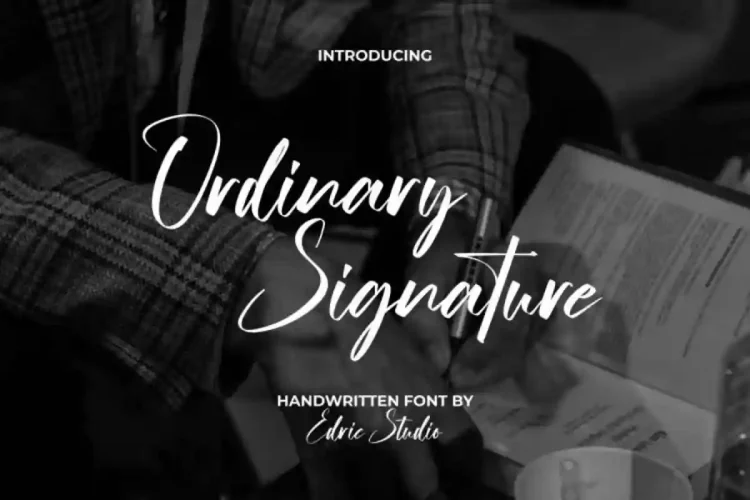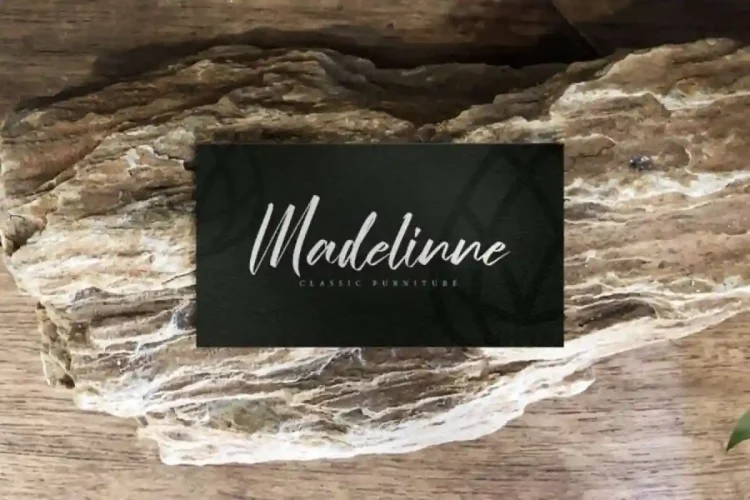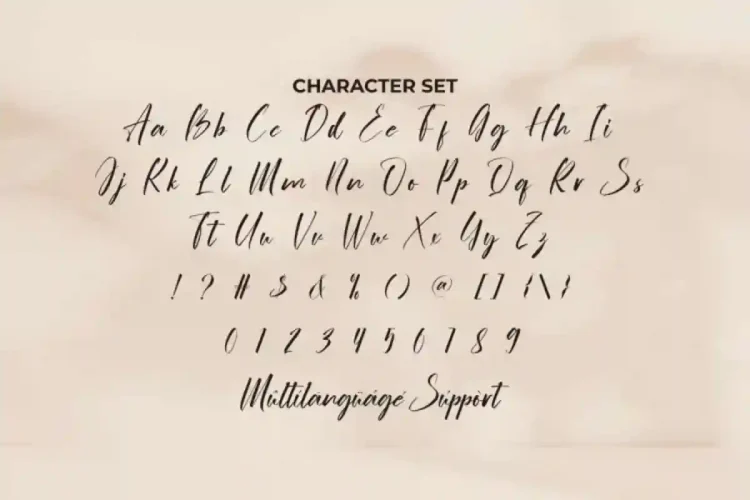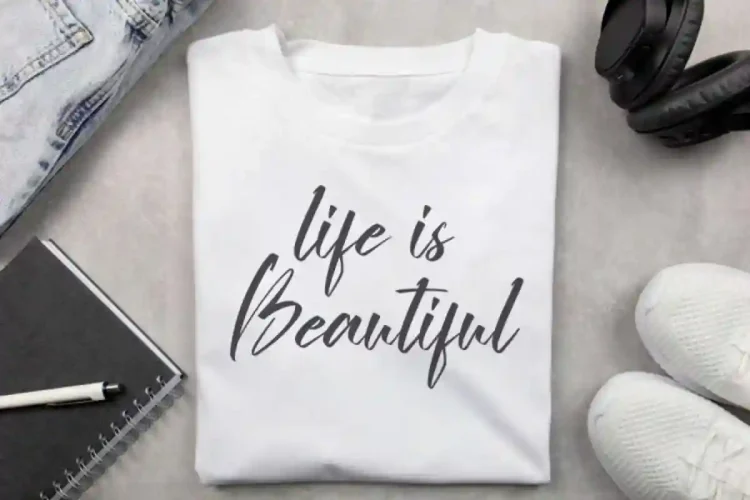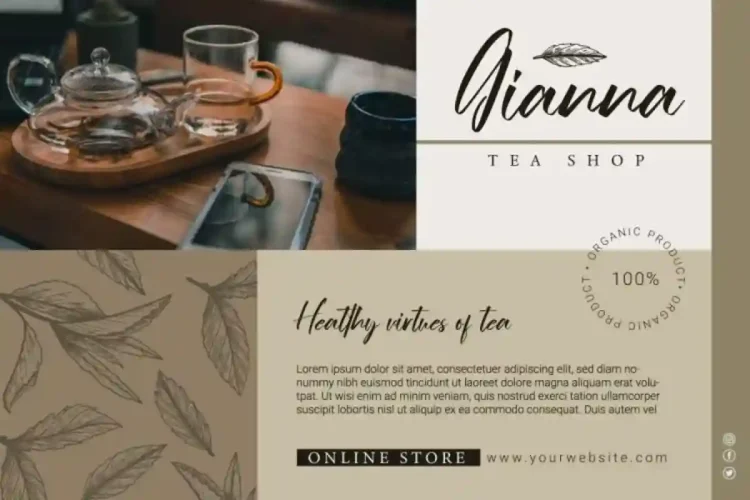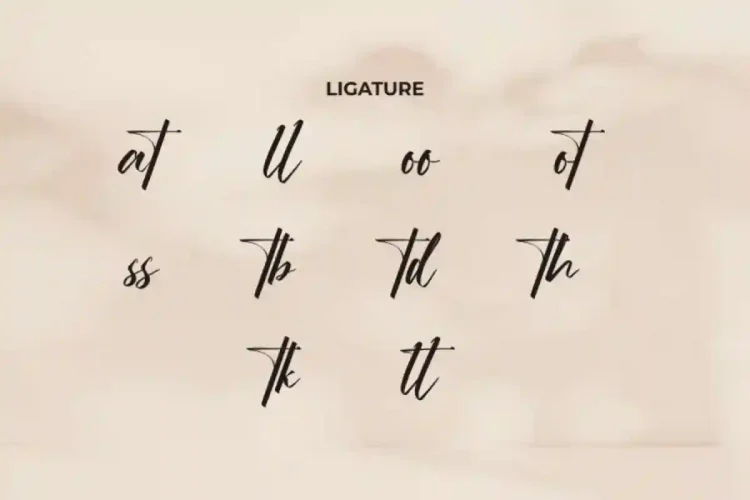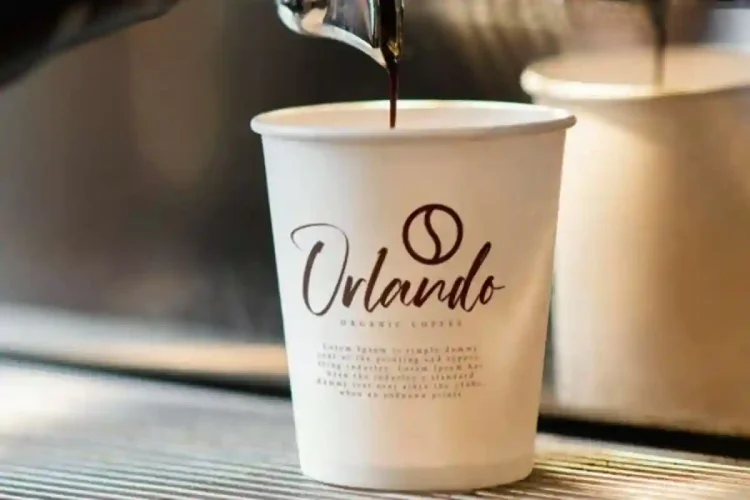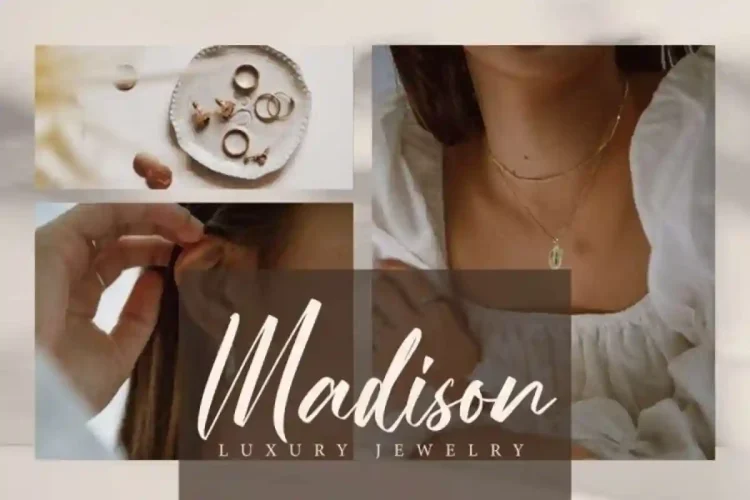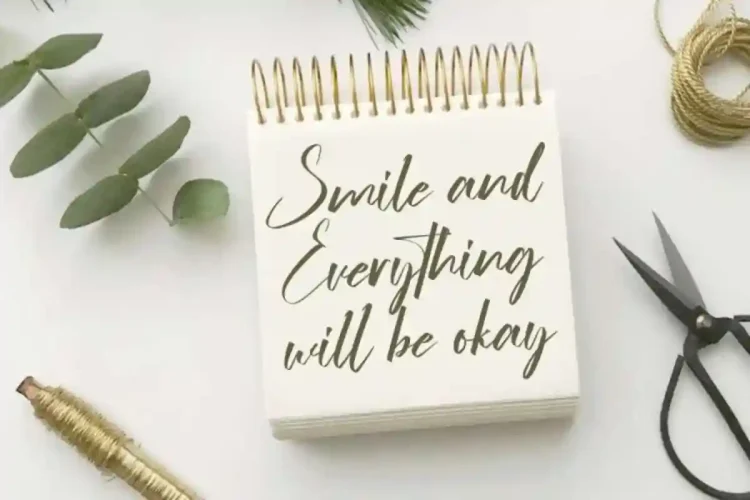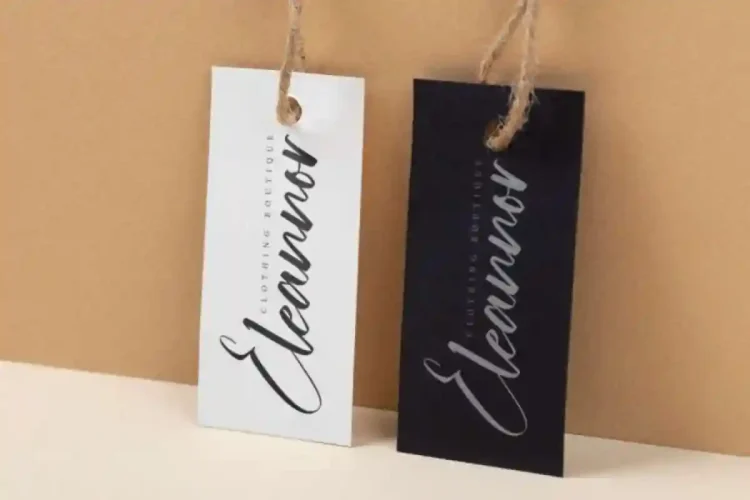
Ordinary Signature Font is a calligraphic handwriting signature font. Crafted with smooth strokes and natural flow, this font is perfect for industries that demand elegance and sophistication.
Ordinary Signature Handwritting Font this signature font comes with a complete set of uppercase and lowercase letters, numbers, punctuation, symbols, and elegant ligatures.It has a stunning characters set, perfectly managed with well spaced and kerning. Perfect for catalogs, labels, product packaging, stationery, websites, titles, and screen printing, Ordinary Signature Font will instantly upgrade your visual identity.
Ordinary Signature Font is a playful typeface with unique decoration in each character. It’s tested to work well in the Adobe Apps (Illustrator, Adobe InDesign, Adobe Photoshop) even work on Microsoft Word. PUA Encode Characters means you can access all the glyphs and other additional characters easily – Fully accessible without additional design software.